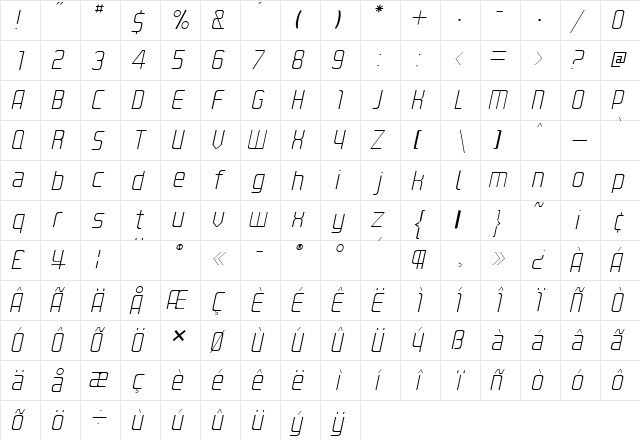
Kanal UltraLight Italic
Design Context for Kanal Typeface
Kanal offers clean, dependable letterforms without strong stylistic allegiance, making it a practical choice for designers who need flexibility. The dynamic lean of this cut emphasises speed and emphasis in any layout. The delicate stroke weight brings airiness and refinement to layouts.
Pro Tip: Try Kanal for annotation and caption copy alongside an upright companion — the contrast in angle creates a dynamic but ordered typographic system.